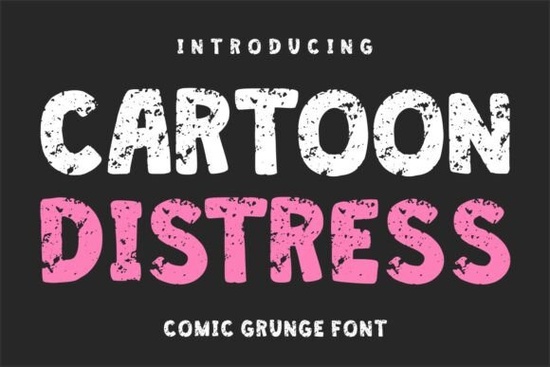
If you’ve been hunting for a font that brings both personality and punch to your designs, the Cartoon Distress Font might be exactly what you’re looking for. It’s got that rough-around-the-edges charm with bold, chunky letterforms that still stay readable perfect when you want something playful but powerful. Whether you’re designing merch for a streetwear brand, whipping up YouTube thumbnails, or putting together flyers for a local event, this font adds instant character without losing clarity.
What kind of projects is Cartoon Distress best for?
This isn’t a font you tuck into body text. It’s made to shout in the best way. Think:
- Comic book covers it nails that hand-drawn, ink-splattered vibe
- Gaming graphics especially if your game has attitude or humor
- Social media banners and thumbnails where you need to grab attention fast
- Kids’ products like party invites, stickers, or classroom posters
- Streetwear and apparel branding for logos or slogans that feel urban and edgy
- Album art or band merch punk, indie, or anything with a DIY spirit
It’s also surprisingly versatile for print-on-demand sellers. Throw it on mugs, tote bags, or phone cases, and it holds up beautifully because the distressed texture hides minor print imperfections while adding depth.
How does it compare to other playful fonts?
If you’ve used fonts like Vanilla Cream or Magic Bright, you know they lean sweet and bubbly. Cartoon Distress is their grittier cousin same energy, but with scuffed knees and spray paint stains. It pairs well with cleaner display fonts if you want contrast: try combining it with Best Friend for a headline/subhead combo that feels balanced but fun.
For folks who love doodle-style typefaces, check out Cartoon Doodle it’s more sketch-like and whimsical, while Cartoon Distress leans into texture and weight. And if you’re going for retro vibes, Groovy Style gives you that ‘70s flair, whereas Cartoon Distress feels more modern street-art-meets-comic-book.
Does the “distressed” look actually work at small sizes?
Yes and that’s what makes it practical. The designers didn’t just slap random grunge textures on top; they built the distressing into the letter shapes so nothing gets lost when scaled down. You can confidently use it on things like:
- Sticker labels (even tiny ones)
- Product packaging tags
- Social media icons or buttons
- Watermark text over photos
That said, avoid using it for paragraphs or fine print. This font thrives as a headline, logo, or accent not body copy.
Any tips for pairing it with other fonts or colors?
Absolutely. Because it’s so visually heavy, pair it with simple sans-serifs or clean scripts. Try:
- Headline: Cartoon Distress
- Subhead or body: Montserrat, Poppins, or even a handwritten script like Pacifico
Color-wise, it pops against dark backgrounds deep navy, charcoal, or black but also looks great over gritty textures like concrete, paper, or denim. Avoid pastels unless you’re going for ironic contrast (think neon pink on ripped black tee that actually works).
Quick checklist before you start designing:
- Use it big headlines, logos, titles
- Pair with simple fonts don’t compete with its texture
- Test readability especially if scaling down
- Layer with textures grunge brushes or paper overlays enhance the vibe
If you’re tired of fonts that feel too polished or corporate, Cartoon Distress brings back that handmade, rebellious energy without sacrificing professionalism. It’s the kind of typeface that makes people stop scrolling, lean in, and smile. Or smirk. Either way, you’ve got their attention.